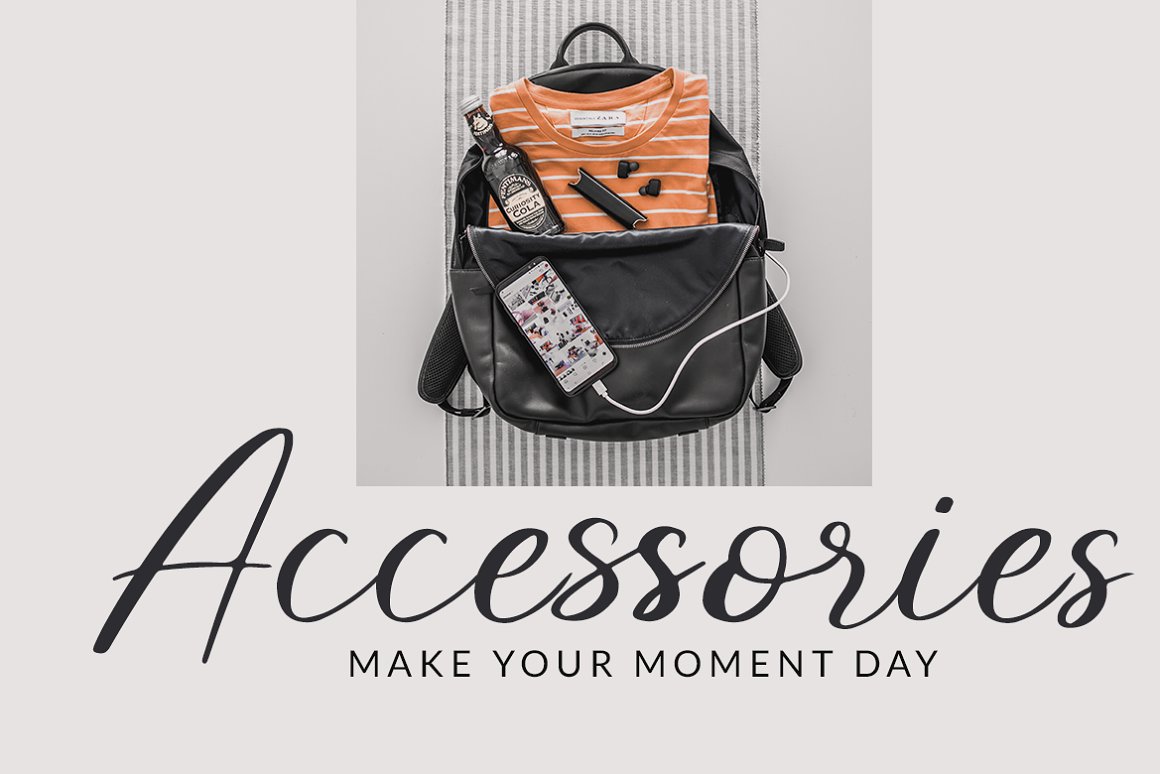
Growming Font
Growming Script Font
This is beautiful script font. The shape is modern and unique and the writing style is very natural. You can create many beautiful typographic designs in an instant like branding, web design and editorial, prints, crafts, quotes.